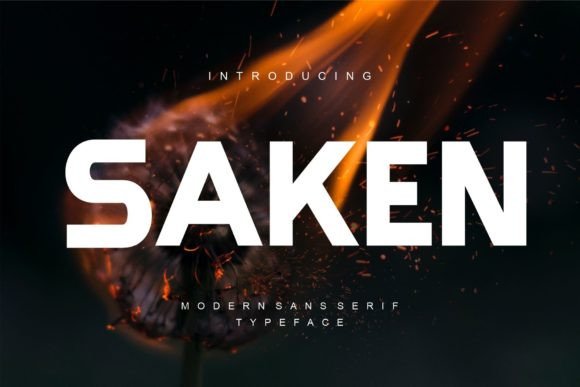
Unleash the elegance of Saken Font - a modern sans serif typeface designed to make your small business shine. Immerse yourself in a world of creativity and sophistication, where your designs come to life with a touch of minimalist brilliance.
Saken Font is the brainchild of Alfinart, a renowned designer known for crafting fonts that speak volumes. Inspired by the simplicity of minimalist logos, Saken Font is a symphony of clean lines and elegant curves, striking the perfect balance between legibility and visual appeal.
With Saken Font at your fingertips, you can effortlessly create designs that resonate with your audience. Craft eye-catching templates and brochures that leave a lasting impression, or elevate your videos and advertising branding with a touch of modern sophistication. Whether you're designing logos, invitations, or indulging in layout design, Saken Font is your trusted companion, adding a touch of elegance to every project.
Step into a realm of endless possibilities, where Saken Font transforms your designs into works of art. Its versatility extends to the world of crafting, adding a touch of beauty to your handmade creations. Explore the limitless potential of Saken Font and let your imagination run wild.